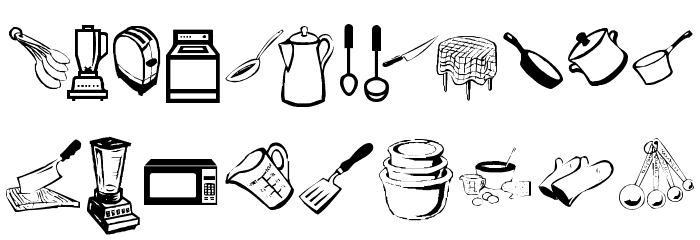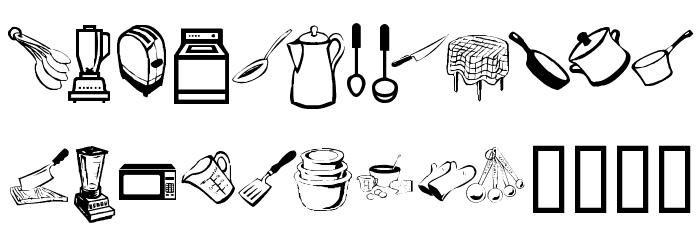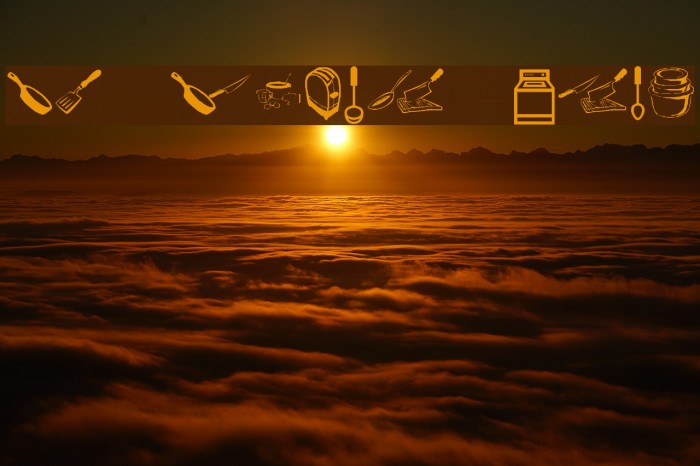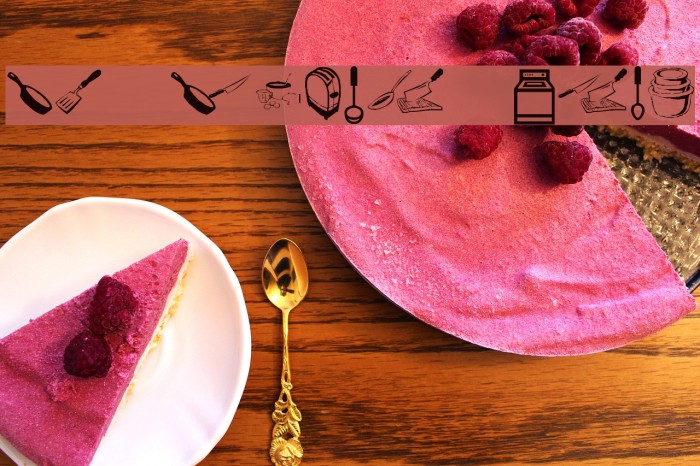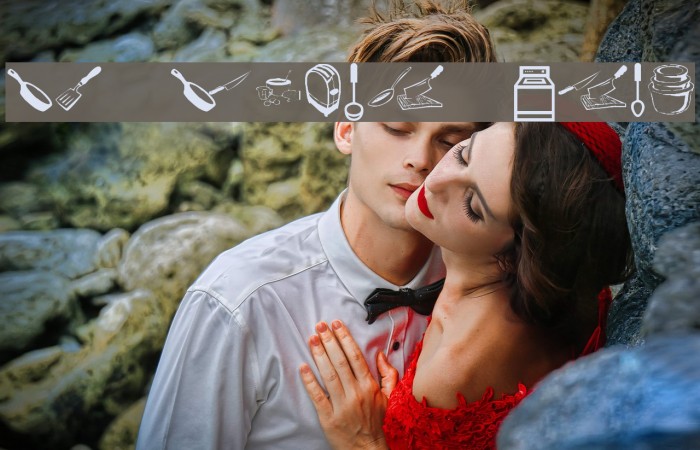
KR Kitchen Dings Font
This is a decorative font featuring a variety of kitchen-themed icons. Each character is represented by a different kitchen utensil or appliance, such as blenders, ovens, measuring cups, and spatulas. The icons are detailed and illustrative, making them ideal for adding a playful and thematic touch to culinary-related projects. The style is consistent across all characters, with a mix of bold outlines and intricate details that capture the essence of each kitchen tool. The font is not designed for traditional text but rather for creative and decorative uses where imagery is more important than readability.
A decorative font with kitchen-themed icons for creative culinary projects.
- Proposed Projects: Ideal for recipe books, cooking blogs, kitchen decor, and culinary event invitations.
- Use Case: Logos, Decorative elements